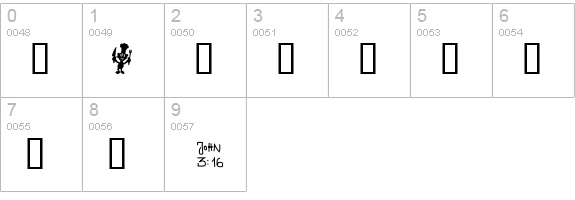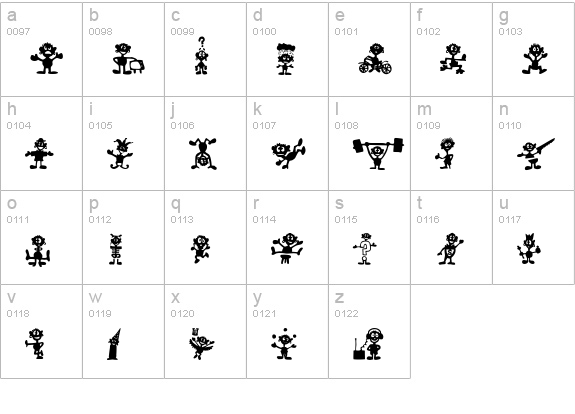
Little Big Man Font Details
Little Big Man font is a whimsical and playful typeface that exudes charm and personality. With its quirky and unique design, this font is perfect for adding a touch of fun to your projects. The rounded edges and slightly irregular shapes give Little Big Man font a handcrafted feel, making it ideal for a variety of creative endeavors. What's even better is that Little Big Man font is available for free download at FontsMarket.com. Yes, you read that right - you can get your hands on this delightful font without spending a dime. So go ahead and add a dash of whimsy to your designs with Little Big Man font, and let your creativity shine!